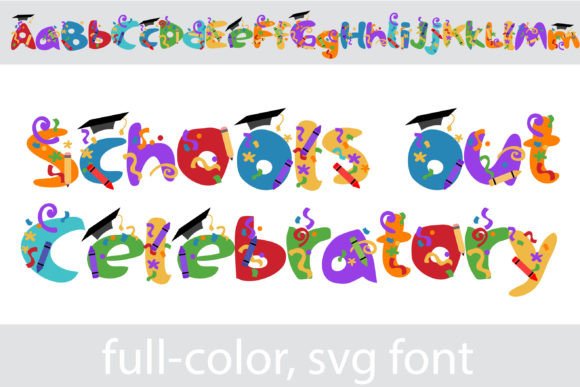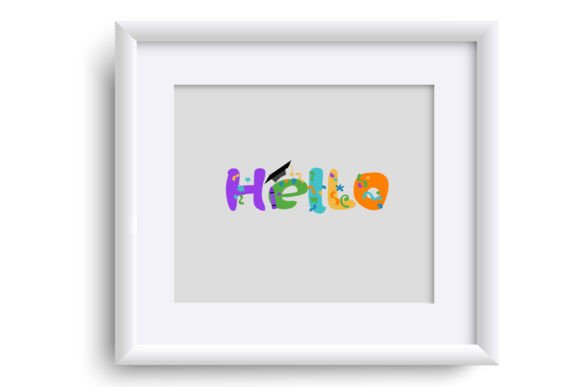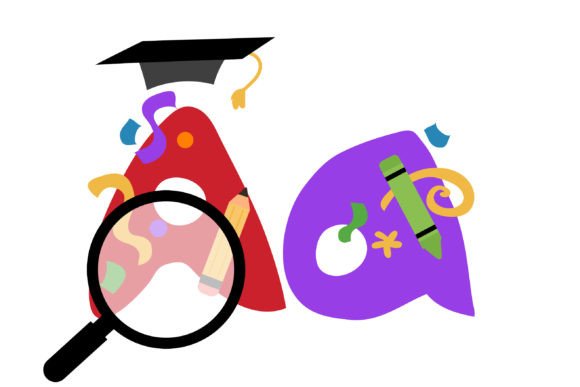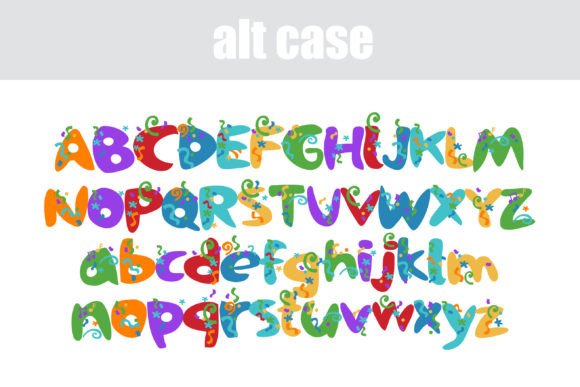
School’s out Celebratory Font
About the School’s out Celebratory Font
The wait is over! The incredible School’s out Celebratory Font is now available for your design toolkit. This full-color font features a crafty font with crayons and confetti and graduation hats. There is an alt case with additional colors you can access through your system’s character map. This font works best for titles, displays, posters and more. Please note color fonts will show as black in non compatible programs. This font type is compatible with Silhouette Studio.